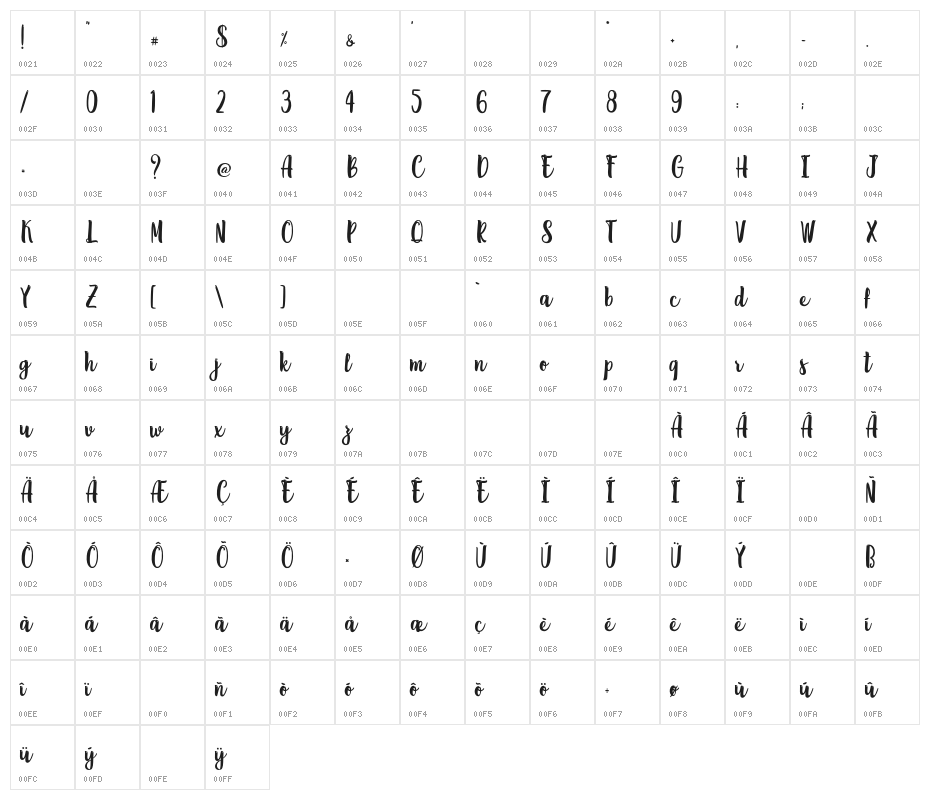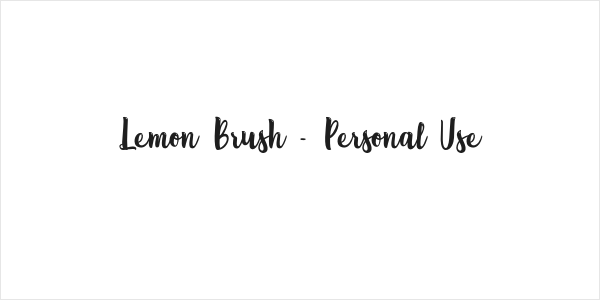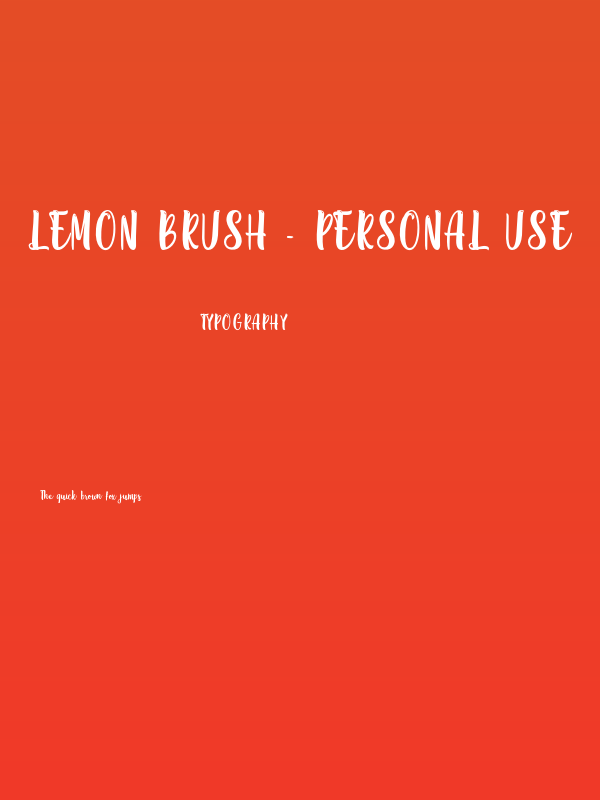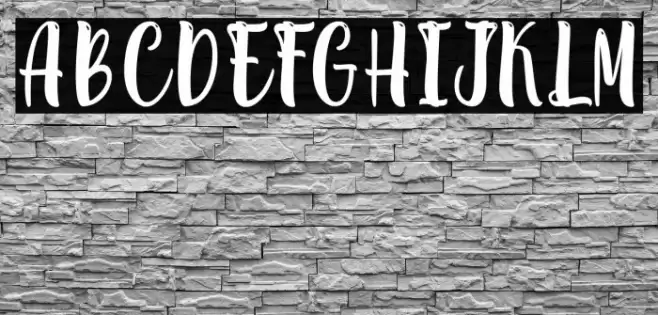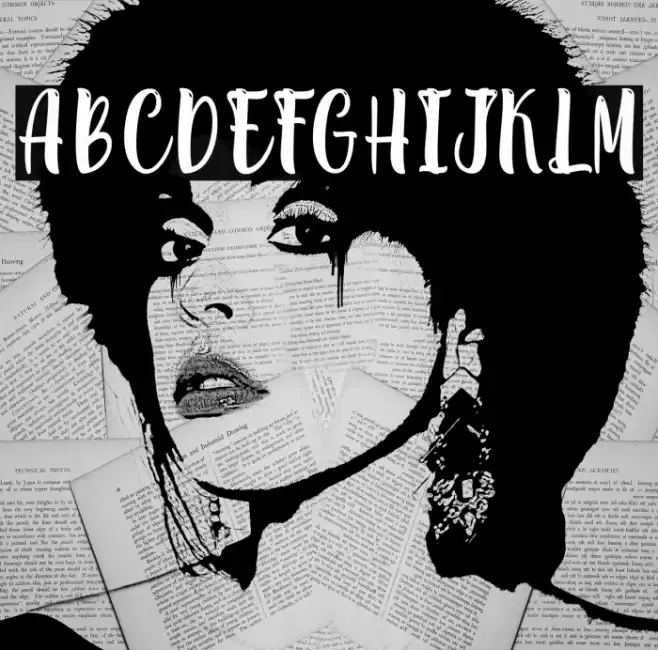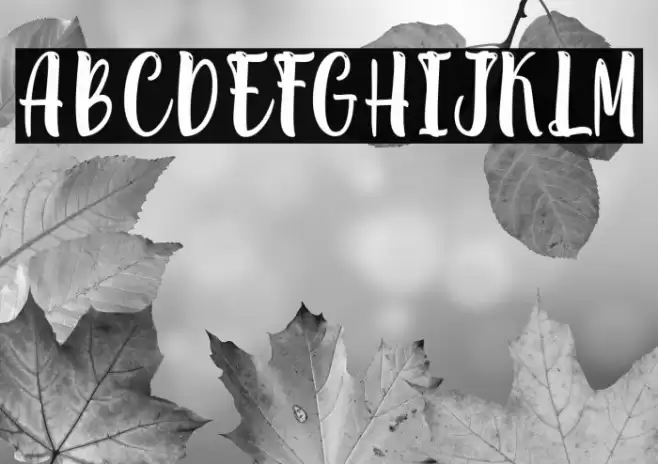
Lemon Brush - Personal Use Font
This font exudes a playful and artistic vibe, characterized by its brush-like strokes and fluid, dynamic forms. The uppercase letters are bold and expressive, with varying stroke widths that give a sense of movement and energy. The lowercase letters maintain this lively style, featuring smooth curves and a slightly informal appearance. Numbers are consistent with the overall design, offering a cohesive look. Special characters are crafted with the same attention to detail, ensuring versatility in various design contexts. The font's hand-drawn aesthetic makes it ideal for projects that require a personal touch or a creative flair.